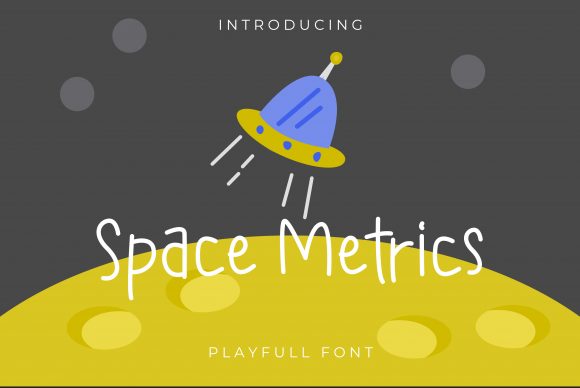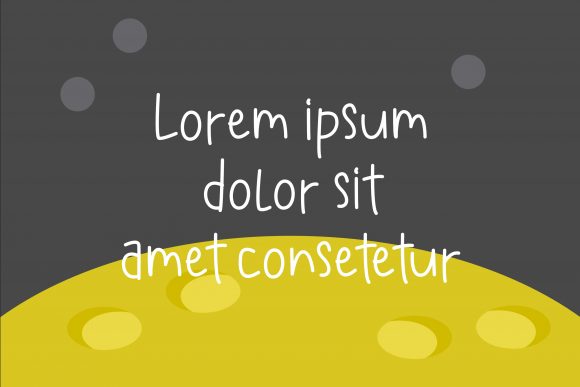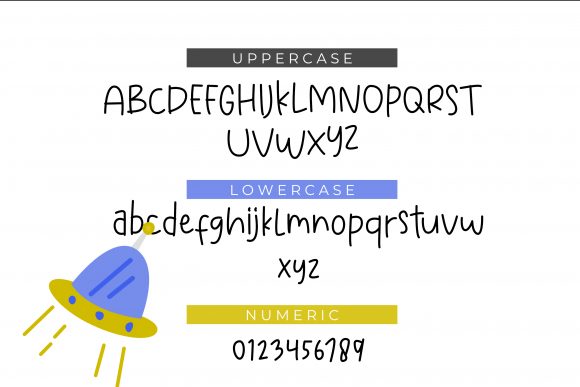
Space Metrics Font
About Space Metrics Font
Space Metrics is a cute and playful handwritten font. Childish, simple and down to earth, this font will make each of your designs stand out.